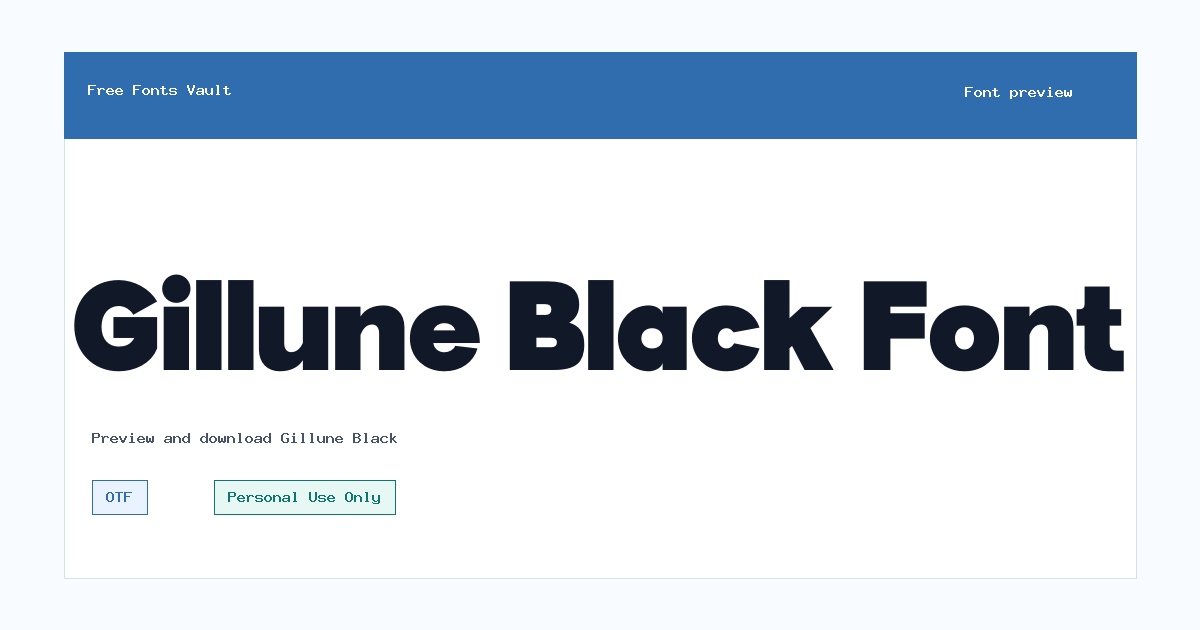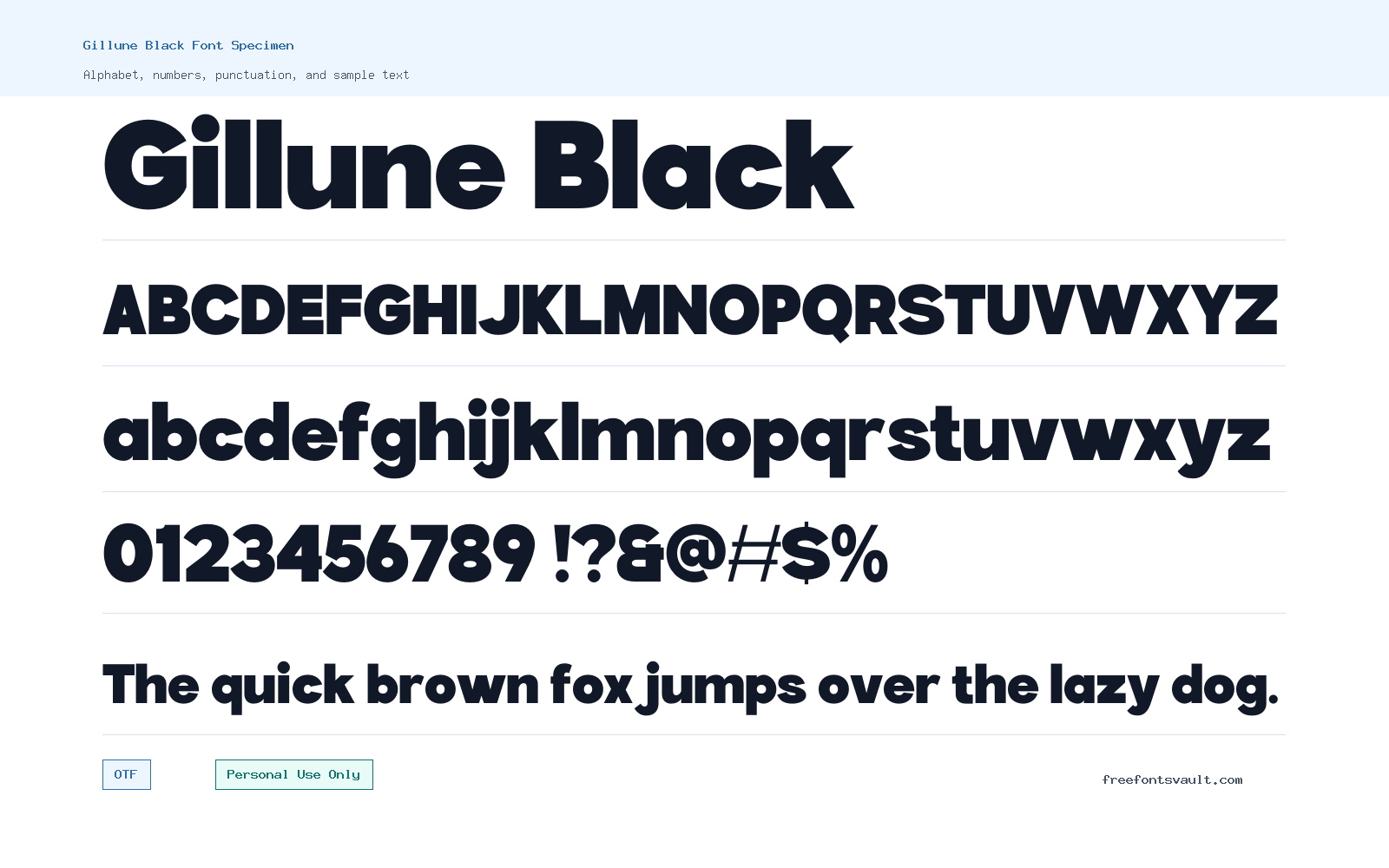
Gillune Black
- Designer Casloop Team
- Foundry Casloop Studio
Gillune Black font.
Gillune Black is a heavy sans serif font made for bold display work, with both upright and italic OTF styles included for personal-use projects.
About Gillune Black
Gillune Black has the kind of strong weight that suits short, high-impact text. The 900 weight gives words a dense, confident presence, so it works best when the message is brief: a logo concept, a poster headline, a YouTube thumbnail title, a social graphic, a banner, or a large website hero mockup. Because the font is supplied in both normal and italic styles, you can create a simple contrast inside the same design without changing families. Use the upright style when you want a more stable headline, and use the italic style when the wording needs extra movement or emphasis.
This is not the best choice for long paragraphs or small interface text. Heavy display fonts can lose clarity when squeezed into tight spaces, especially on mobile screens or low-resolution previews. Before downloading, try your actual words in the preview tool and test them in uppercase, title case, and short sentence case. Pay attention to tight letter pairs, long brand names, and numbers. For logo sketches and poster layouts, leave enough spacing around the text so the black weight can breathe. For web mockups, Gillune Black can work well as a headline face, but it should be paired with a quieter body font for menus, descriptions, and longer reading.
Designers can use Gillune Black for personal concept work where a bold sans serif voice is needed. It can help when building moodboards, personal branding studies, typography posters, apparel mockups, presentation covers, or display-first landing page drafts. The italic style is useful for secondary emphasis, short callouts, angled title treatments, or alternate logo lockups. Keep the overall composition simple: a heavy font already carries a lot of visual weight, so too many effects, outlines, shadows, or competing typefaces can make the design feel crowded.
For pairing, start with a clean regular-weight sans serif or a readable serif that does not fight the headline. A light or regular sans serif can handle descriptions, captions, and navigation while Gillune Black stays focused on the main message. If you pair it with another bold display font, the layout may lose hierarchy. A good rule is to let Gillune Black be the loudest type element, then keep supporting text smaller, simpler, and more spaced out. This makes posters, thumbnails, and web mockups easier to scan.
- Heavy 900-weight sans serif style suited to short display text
- Works well for strong headlines, poster titles, logo concepts, and social graphics
- Italic style adds emphasis without switching to a different font family
- Best used at larger sizes where the bold weight stays clear
- Logo concepts and personal branding drafts
- Posters, flyers, and event-style headline layouts
- Website hero sections and landing page mockups
- YouTube thumbnails, social media graphics, and banner titles
- Apparel mockups, stickers, and bold typographic compositions
- Short callouts where the italic style can add motion or contrast
Use Gillune Black as a display font rather than a reading font. Keep headlines short, check spacing in the preview, and pair it with a simpler text face for body copy. For logo work, test the exact brand name in both upright and italic styles, then review the result at small sizes before choosing it. For posters and web mockups, give the letters enough room and avoid stacking too many decorative effects on top of the heavy weight.
What font files are included?
Gillune Black includes OTF files for a normal style and an italic style, both listed at 900 weight.
What is Gillune Black best used for?
It is best for short display text such as logo concepts, poster headlines, social graphics, thumbnails, banners, and web hero mockups.
Can I use Gillune Black for body text?
It is not ideal for long body text. The heavy weight is easier to use in large headlines and short phrases, while a simpler font should handle paragraphs and small labels.
Does Gillune Black include an italic style?
Yes. The family includes a Gillune Black italic OTF file, which can be used for emphasis or alternate display treatments.
Who designed Gillune Black?
The font is credited to Casloop Team, with Casloop Studio listed as the foundry.